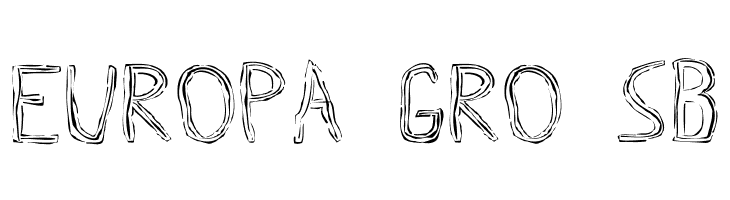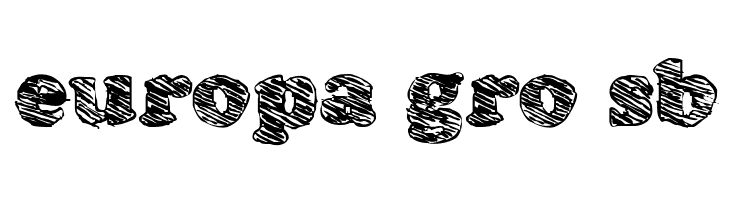
( Fonts by Jay Hilgert - www.bittbox.com )
A decorative, sketch-like font with bold outlines and intricate hatching.
( Fonts by Manuel Viergutz - Typo Graphic Design - www.typographicdesign.de )
A sketch-like, italic font with a hand-drawn, artistic style.
( Fonts by Kimberly Geswein - kimberlygeswein.com )
A playful, hand-drawn font with a sketch-like, textured appearance.
( Fonts by www.lars-manenschijn.nl )
An artistic, hand-drawn font with intricate, sketch-like details.
( Fonts by Rodrigo German - RASDESIGN )
A bold, decorative font with a hand-drawn, sketch-like appearance.